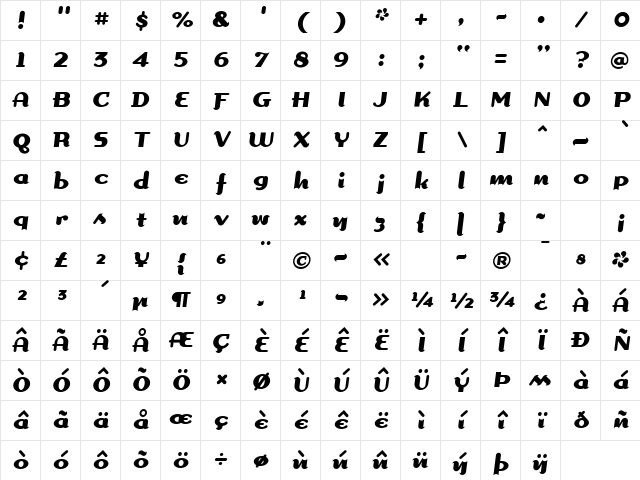
Dogma Bold
Copyright: Copyright (C) 1994 Emigre Graphics, Designed by Zuzana Licko
Foundry: C) Emigre Graphics, Designed by Zuzana Licko
Design Context for Dogma
Dogma is a composed and adaptable typeface that performs quietly and consistently across a wide range of design contexts. Its bold stroke weight gives it real presence on the page.
Who designed the Dogma Bold font?
This font was published by C) Emigre Graphics, Designed by Zuzana Licko. Check the technical specs section for copyright and designer details.